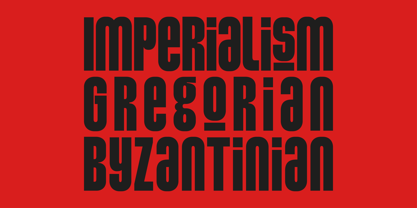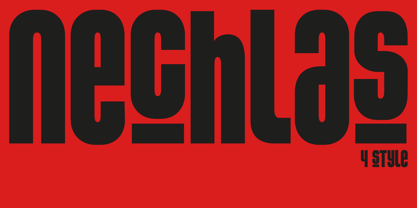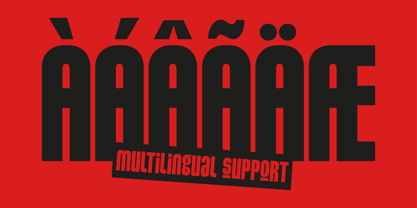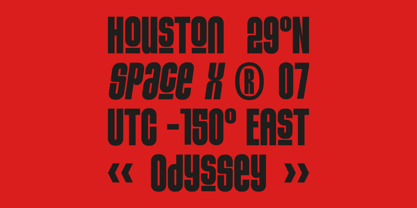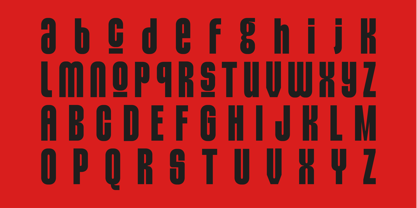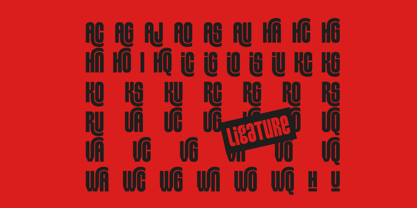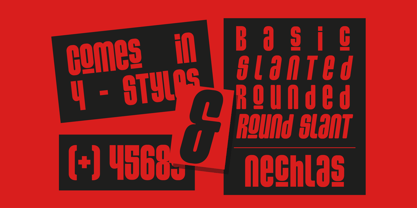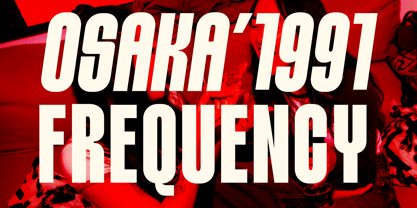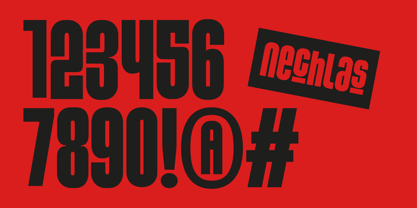
Nechlas
by Glyphminds Studios
The Nechlas Font Family was designed by Baliya Ibnu Bi Malkan and published by Glyphminds Studios. Nechlas contains 4 styles and family package options. More about this family
Nechlas is an extremely bold, condensed, and high-impact display font. Its most defining characteristic is its aggressive, industrial aesthetic, achieved through unique “stencil” or “cut-out” horizontal breaks in the letterforms. This modular design gives it a digital, futuristic, and blocky feel. The letter shapes are constructed with a mix of rounded outer curves (like the ‘n’, ‘c’, ‘s’) and hard, blocky internal structures. The overall impression is one of power, speed, and modern technology. The high-contrast black font on a vibrant red background amplifies its energetic and demanding presence, making it impossible to ignore. Command attention and energize your designs with Nechlas, a powerful and futuristic display font family. Built for high-impact, Nechlas features an aggressive, industrial style with unique stencil cut-outs that create a bold, technological feel.
Designers: Baliya Ibnu Bi Malkan
Foundry: Glyphminds Studios